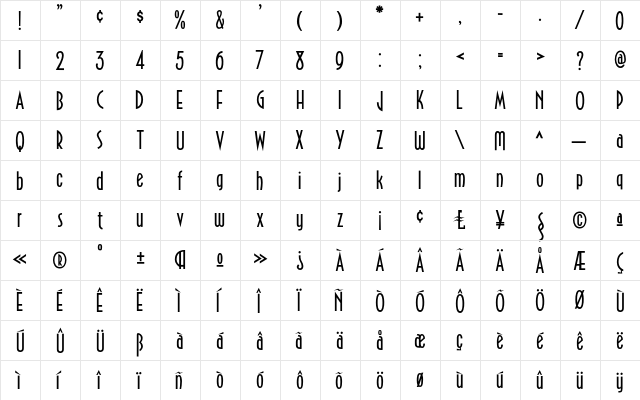
Emporium Regular
Design Context for Emporium Typeface
Emporium is a composed and adaptable typeface that performs quietly and consistently across a wide range of design contexts.